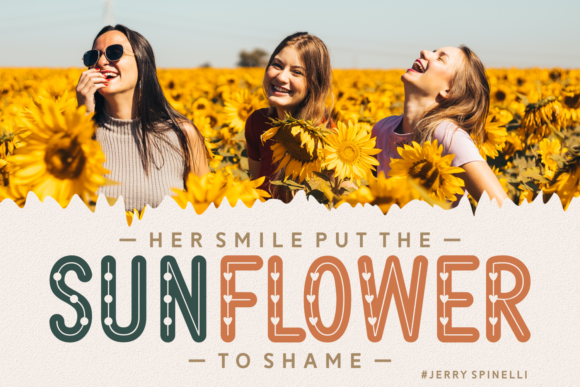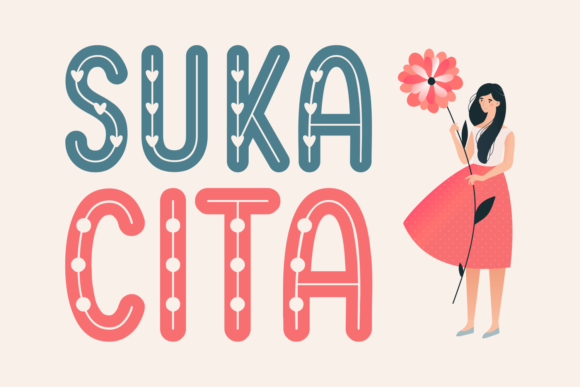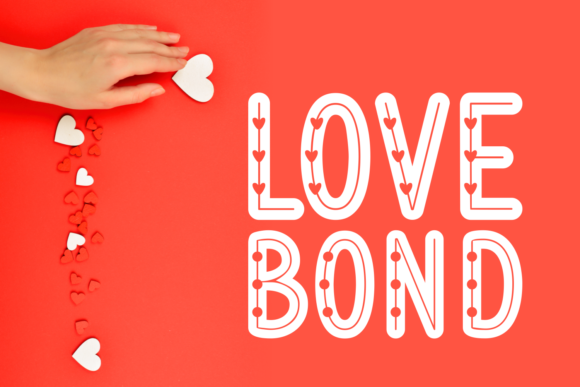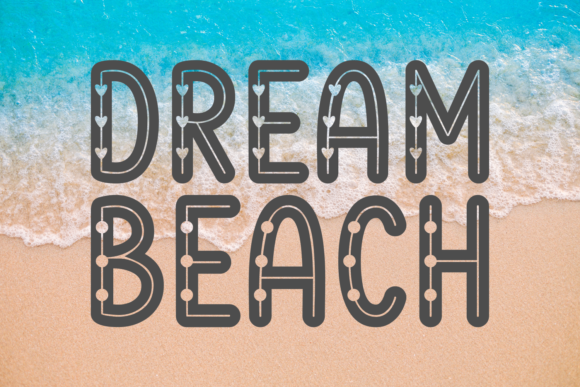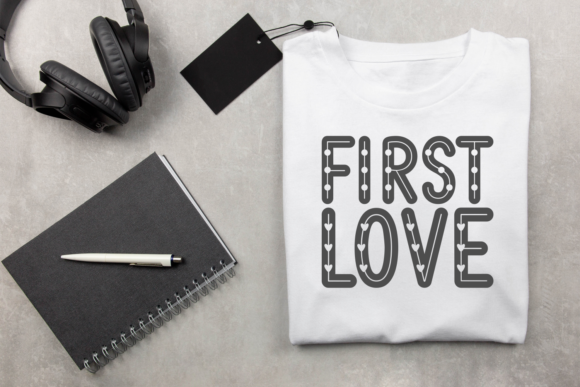
Introduction to Ready Lover Font
Ready Lover is a cool and lovely display font.
Add it confidently to your favorite creations and let yourself be amazed by the outcome generated .
Key Features of Ready Lover Font
Why Choose Ready Lover Font?